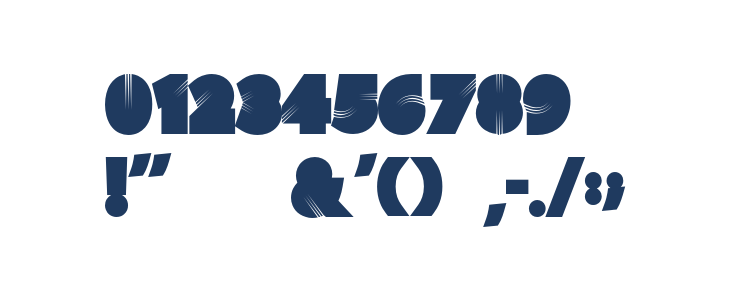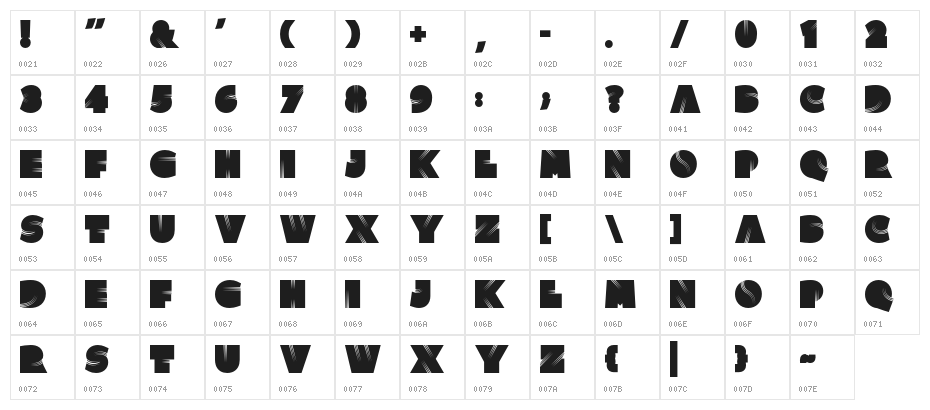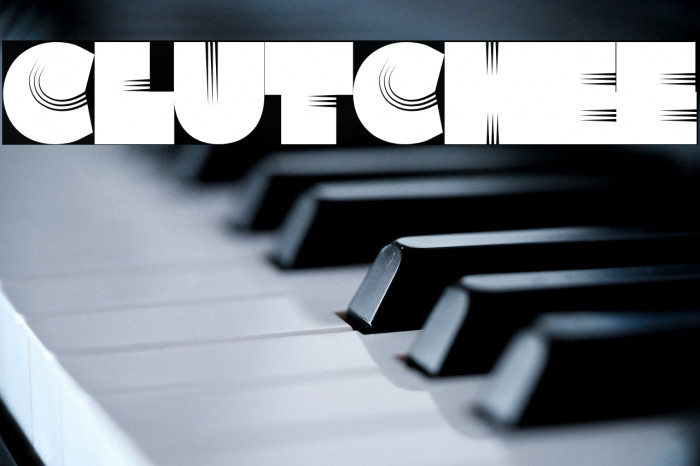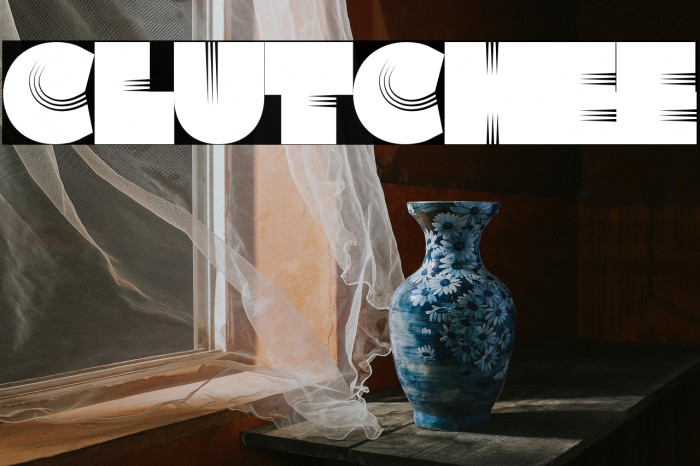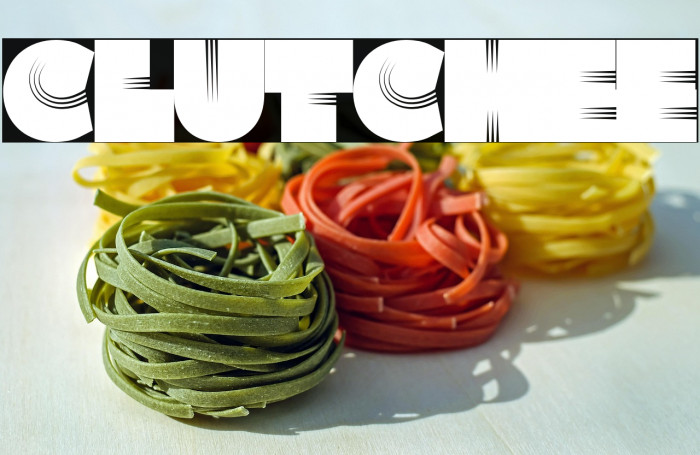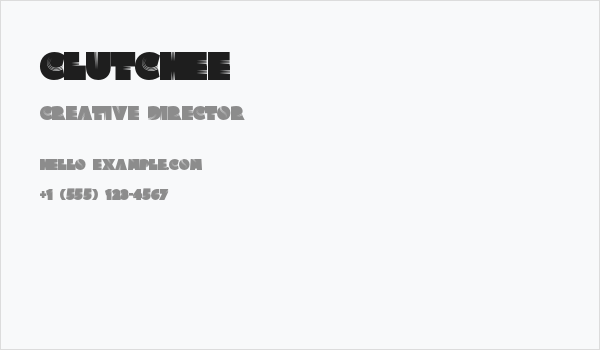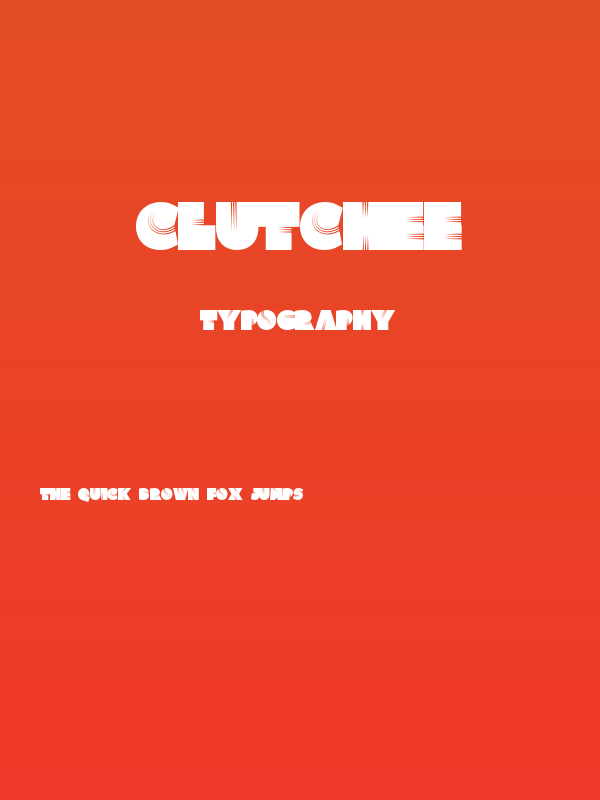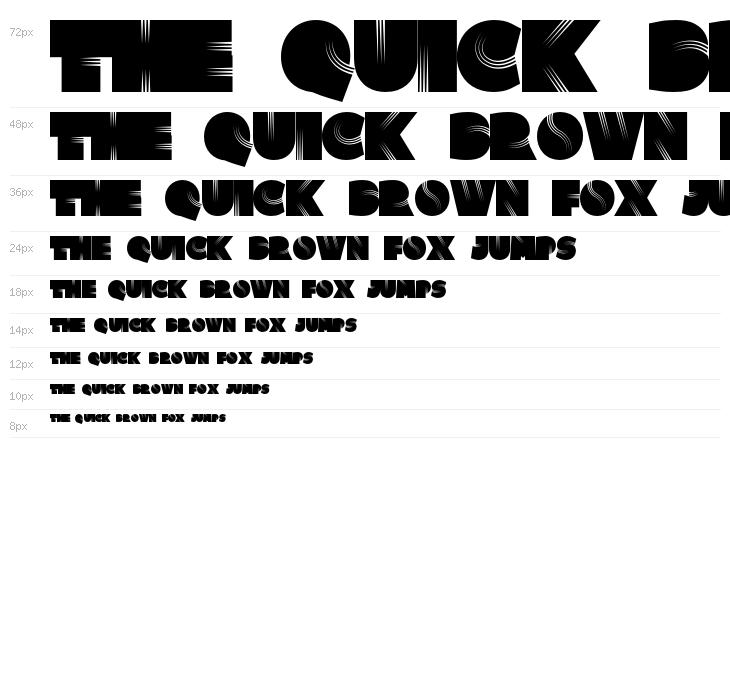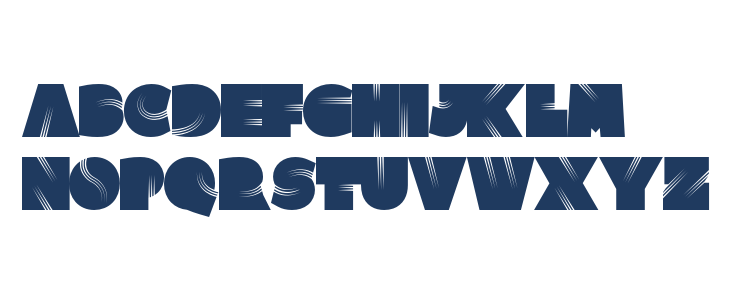
Clutchee Font
Clutchee Description
This font features a bold and striking design with a unique pattern of horizontal lines cutting through each character, creating a dynamic and eye-catching effect. The characters are wide and blocky, with a strong geometric influence that gives them a modern and industrial feel. The uppercase and lowercase letters maintain a consistent style, while the numbers and special characters complement the overall aesthetic. The font's distinct appearance makes it suitable for projects that require a bold statement or a futuristic touch.
| Proposed Projects | Ideal for branding, posters, headlines, and any design work that requires a bold, modern aesthetic. |